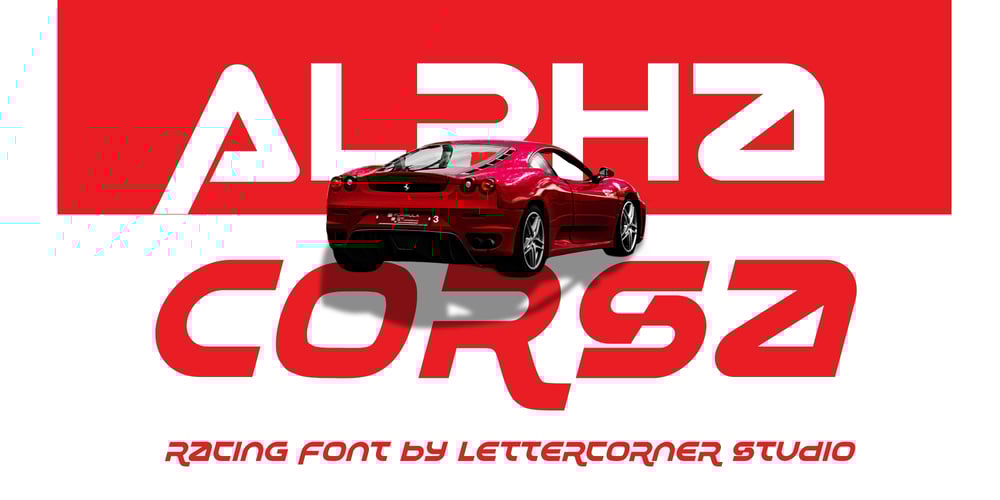
Alphacorsa
Alphacorsa font
Alphacorsa Font Family was designed by Muhammad Afif Ersya and published by Mevstory Studio. Alphacorsa contains 2 styles and family package options. The Alphacorsa font embodies sleek, dynamic lines mirroring the speed and energy of modern sports racing. Its bold typography captures the essence of velocity, with sharp, futuristic contours that evoke a sense of adrenaline-fueled motion.